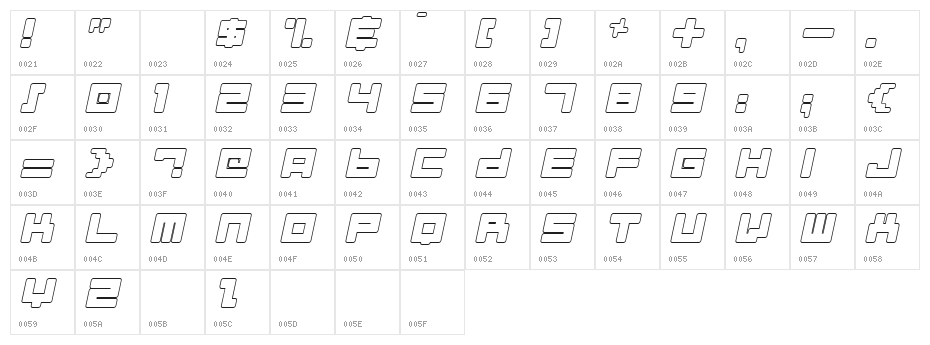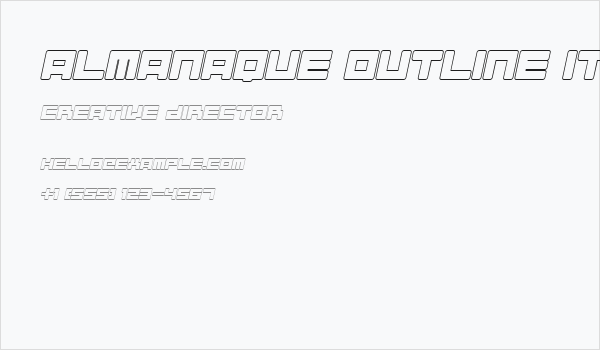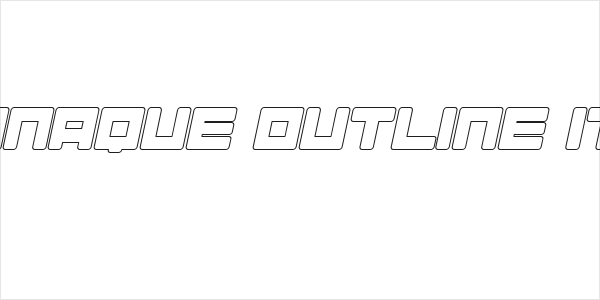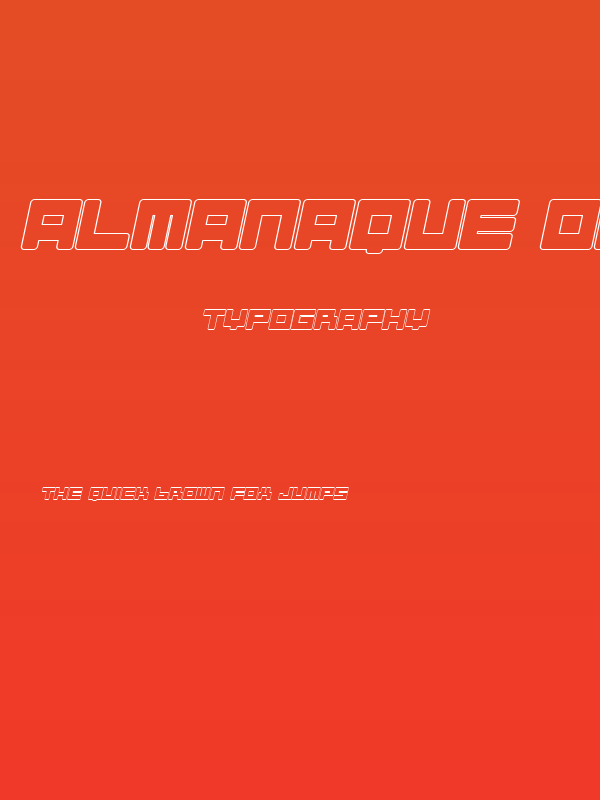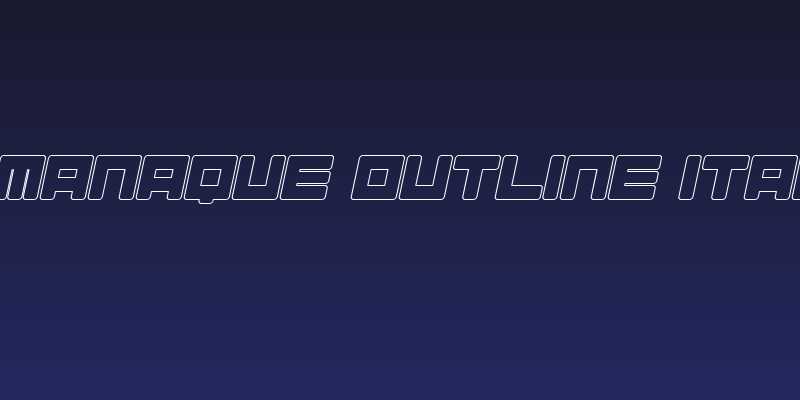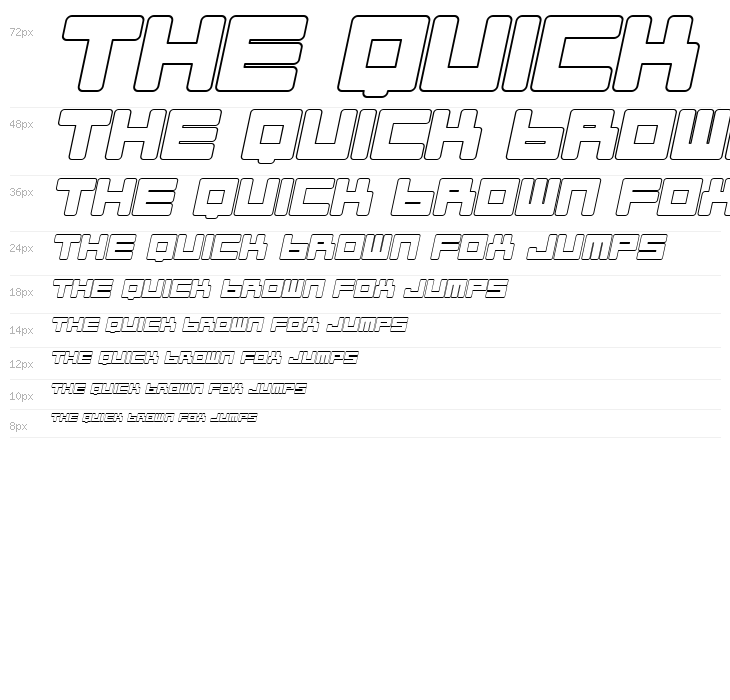
Almanaque Outline Italic Font
Almanaque Outline Italic Description
This font features a bold, outlined style with a futuristic and geometric appearance. The characters are italicized, adding a dynamic and forward-leaning aspect to the design. Each letter is constructed with clean lines and sharp angles, creating a modern and tech-inspired look. The outline effect gives it a unique, hollow appearance, making it stand out in various design contexts. The uppercase and lowercase letters maintain a consistent style, while the numbers and special characters complement the overall aesthetic. This font is ideal for projects that require a contemporary and eye-catching typeface.
| Proposed Projects | Ideal for tech branding, futuristic posters, video game titles, and digital media. |